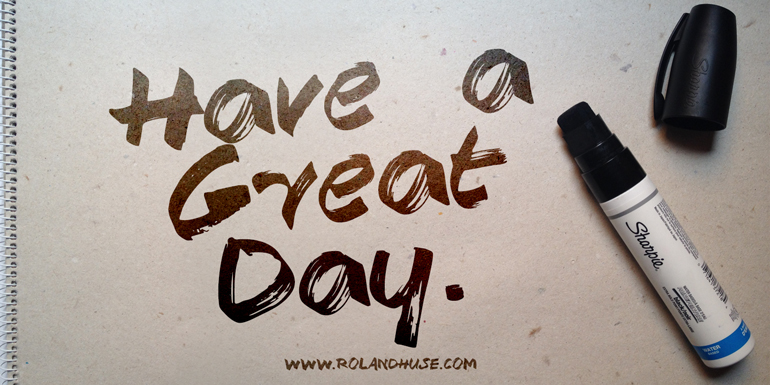
Preview and download Have a Great Day Font. Created by Runes & Fonts in Script Brush styles with Demo license.
HAVE A GREAT DAY demo is a demo version of a bold handmade sharpie font. For commercial use and/or full version and license please visit http://www.rolandhuse.com Please feel free contatct me if you have any questions or feedback. You MAY NOT sell this font or claim them as your own. You MAY NOT edit or rename this font. You MAY NOT redistribute this font. Thank you & I hope you like this font, Roland http://www.rolandhuse.com https://www.facebook.com/pages/Runes-And-Fonts/123221817784772 |